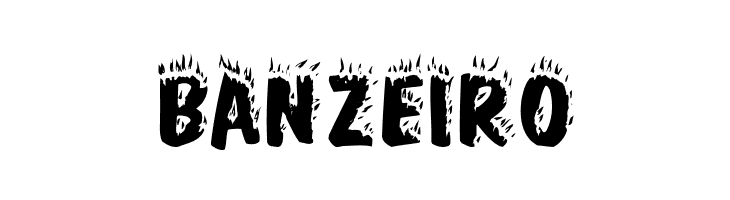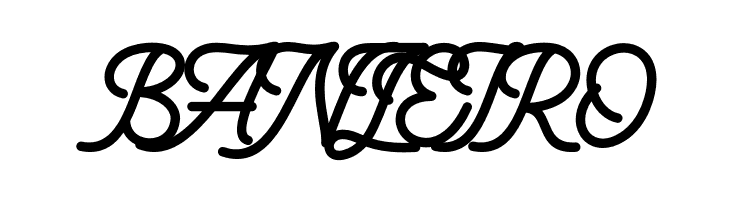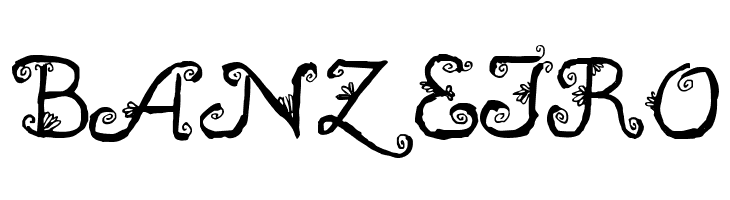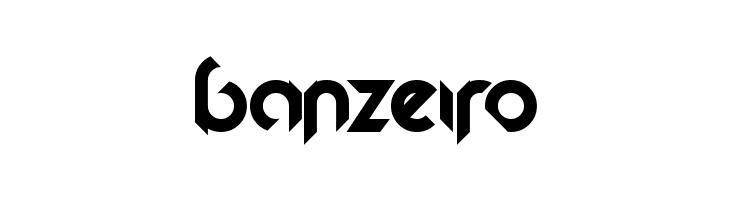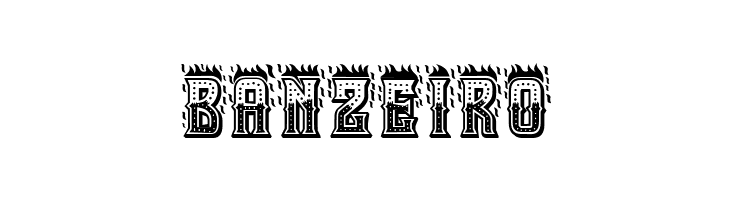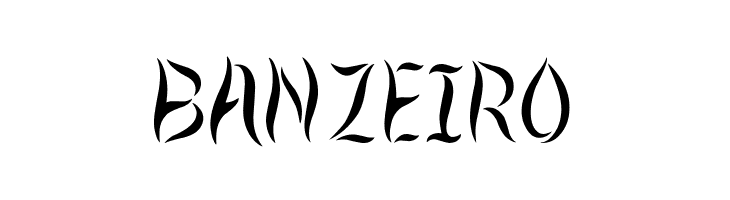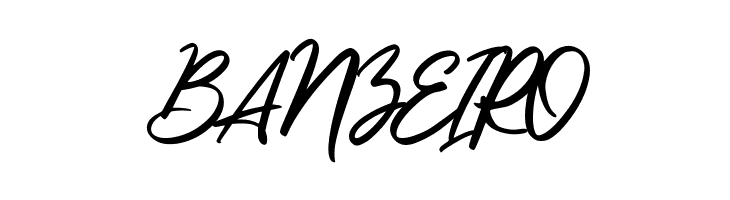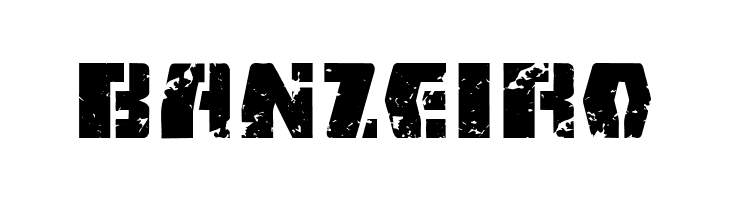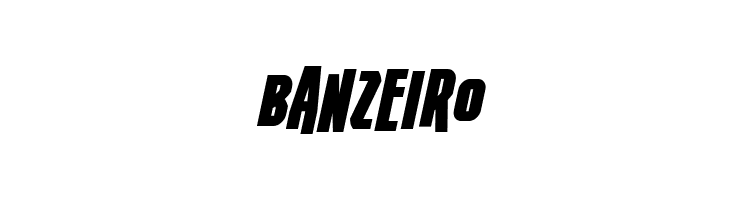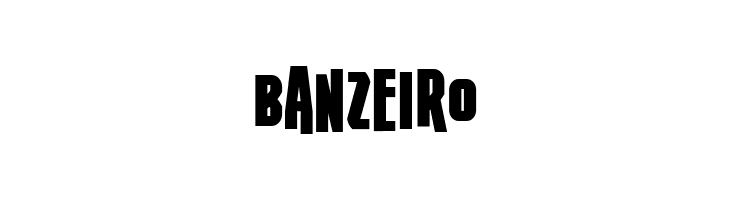
A bold, cursive script font with smooth, interconnected letters.
A bold, distressed font with a rugged, weathered appearance.
A bold, geometric font with sharp angles and a modern, futuristic style.
A bold, geometric font with sharp angles and a modern aesthetic.
A playful, handwritten font with a whimsical and informal style.
A bold, cursive script font with dynamic and fluid strokes.
A modern, handwritten-style font with fluid, cursive characters.
An elegant script font with ornate flourishes and a flowing cursive style.
A bold, geometric font with a strong, impactful presence.
A bold, italic, and dynamic font with a strong sense of motion.
A bold, modern font with thick strokes and a strong, impactful presence.
A bold, italicized font with a dynamic and energetic style.
A fiery, bold font with jagged edges and high contrast, perfect for dramatic designs.
A textured, hand-drawn font with a rugged, chalk-like appearance.
A bold, fiery font with jagged, flame-like edges for dramatic impact.
A bold, flame-inspired font with sharp, angular strokes and dynamic energy.
A bold, angular font with a futuristic and geometric design.
A playful, decorative font with bold characters enclosed in circles.
A decorative font with swirling, flame-like extensions and dynamic strokes.
An ornate and decorative font with intricate swirls and flourishes.
A festive decorative font with diverse fireworks and burst illustrations.
A playful, star-embellished decorative font with bold, rounded characters.
A sophisticated script font with high contrast and elegant, flowing strokes.
An elegant and flowing script font with graceful, cursive letterforms.
A bold, decorative font with flame-like accents and intricate patterns.
A whimsical, decorative font with ornate, swirling embellishments.